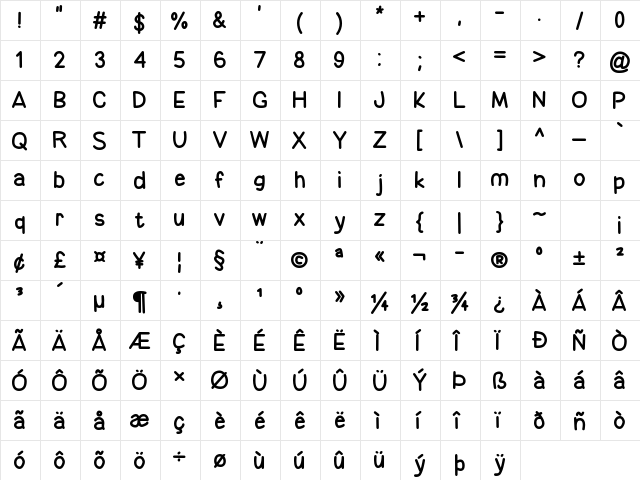
Be Kind To The Earth Regular
Design Context for Be Kind To The Earth Typeface
Be Kind To The Earth is a composed and adaptable typeface that performs quietly and consistently across a wide range of design contexts.